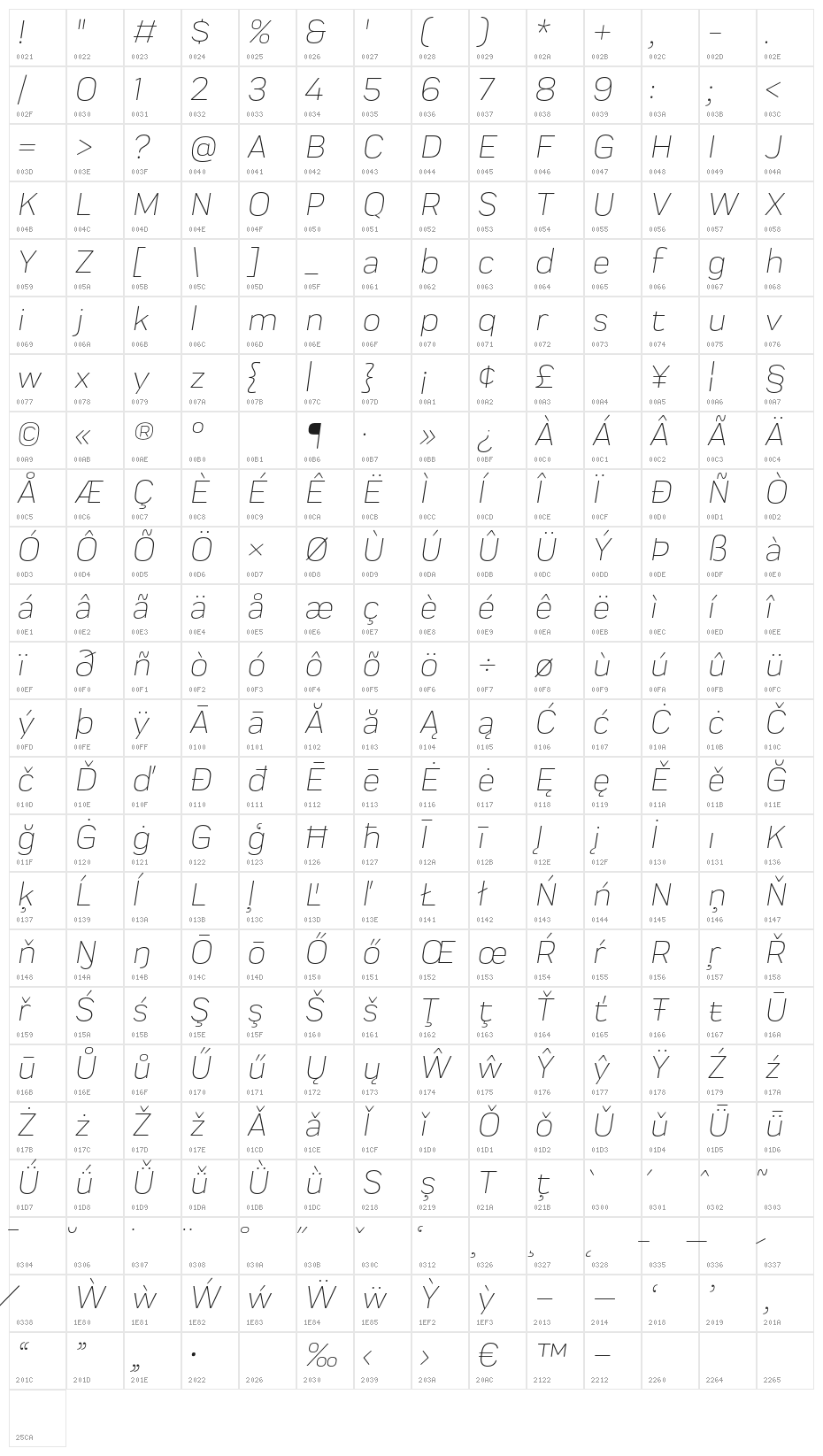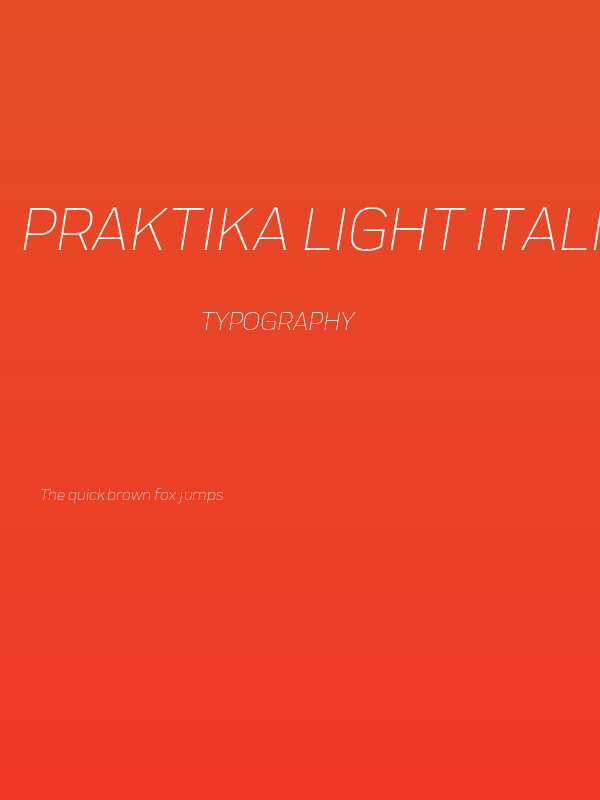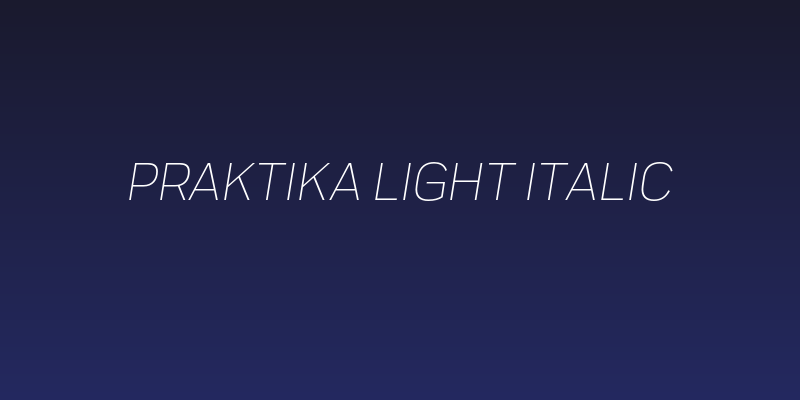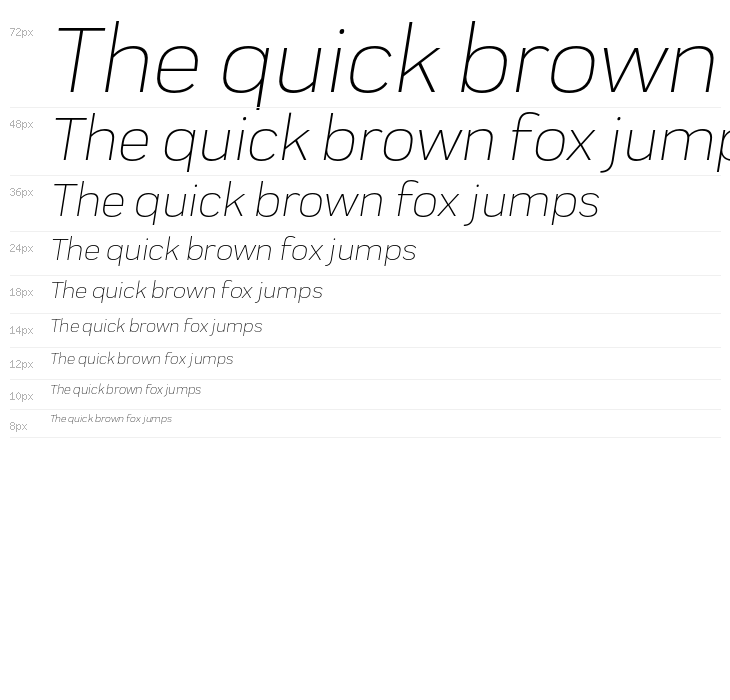
Praktika Light Italic Font
Praktika Light Italic Description
This font features a sleek and modern design with a light weight and italic style. The characters are elegantly slanted, providing a sense of motion and fluidity. The sans-serif design ensures a clean and minimalistic appearance, making it versatile for various applications. The letterforms are well-proportioned with a consistent stroke width, contributing to its readability. The numerals and special characters maintain the same stylistic approach, ensuring uniformity across all elements. This font's understated elegance makes it suitable for contemporary design projects.
Proposed ProjectsIdeal for modern branding, editorial design, websites, and digital interfaces.